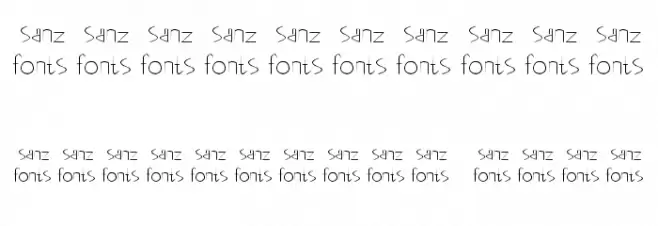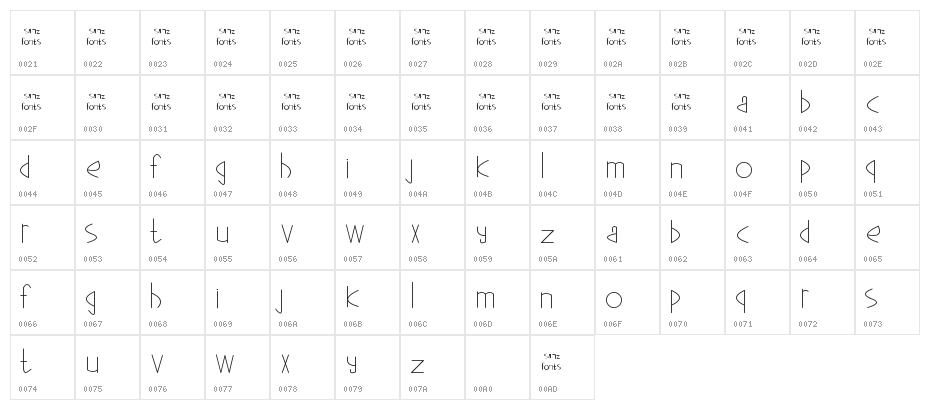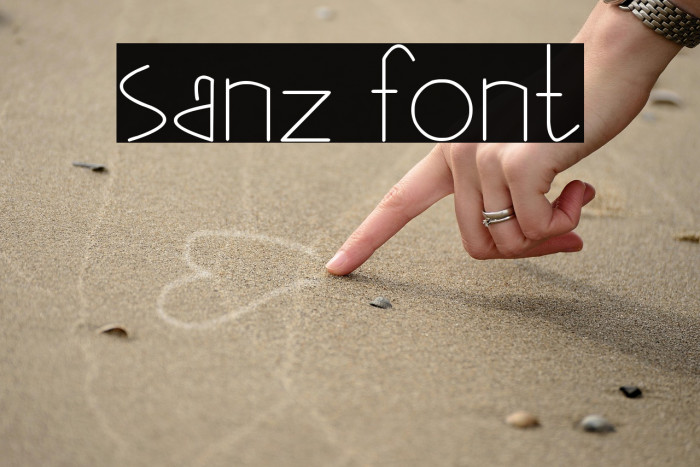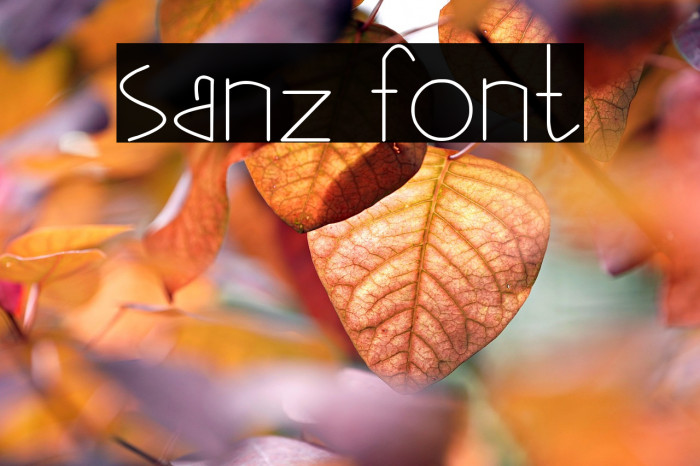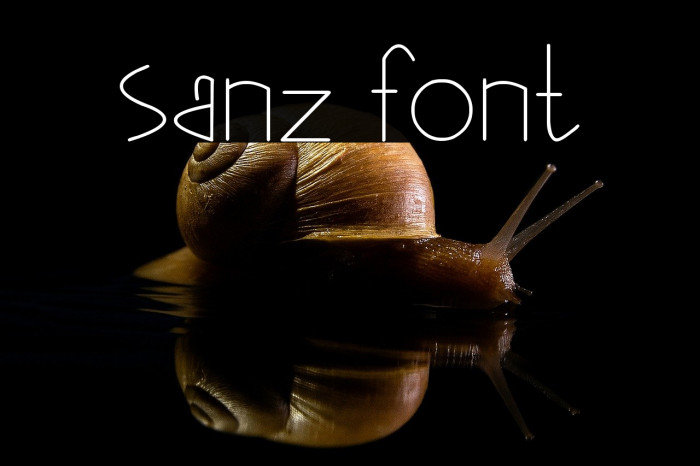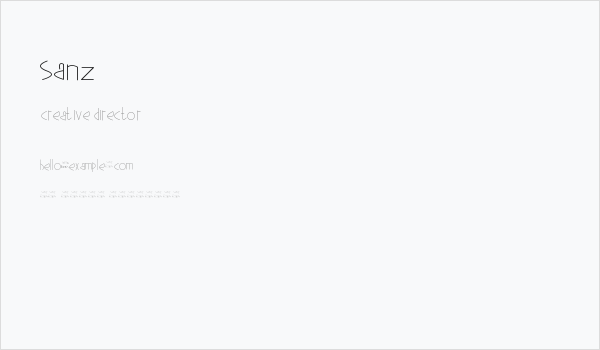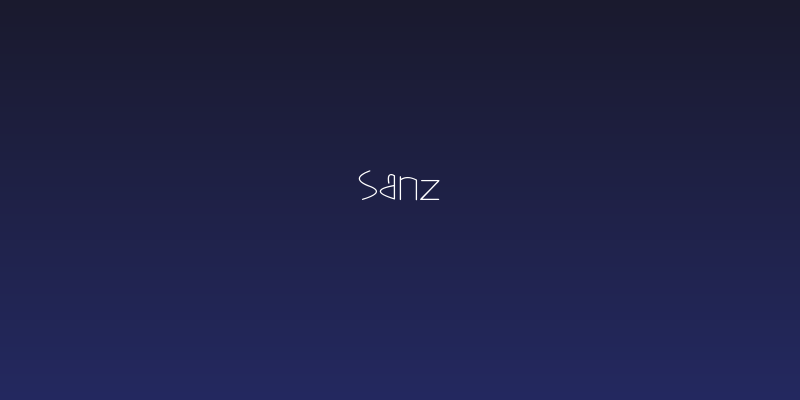
sanz Font
sanz Description
This font features a sleek, modern design with clean lines and a minimalist aesthetic. The characters are elongated and have a geometric structure, giving them a contemporary feel. The uppercase and lowercase letters maintain a consistent style, with a focus on simplicity and readability. The font's thin strokes and uniform width contribute to its elegant appearance, making it suitable for a variety of design applications. Its unique character shapes add a touch of sophistication, while the overall design remains highly legible.